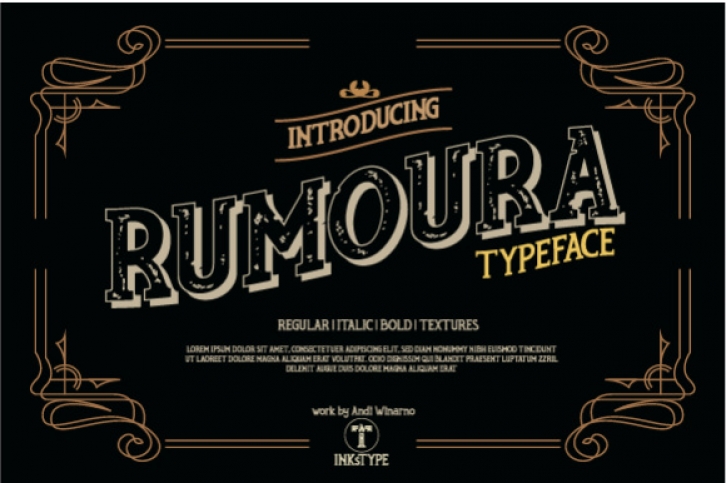
Rumoura is a typeface with a retro look, suitable for a large range of design projects.
It’s a classical looking serif font, allowing you to create bold & vintage designs in a minute. It comes with 4 unique styles.